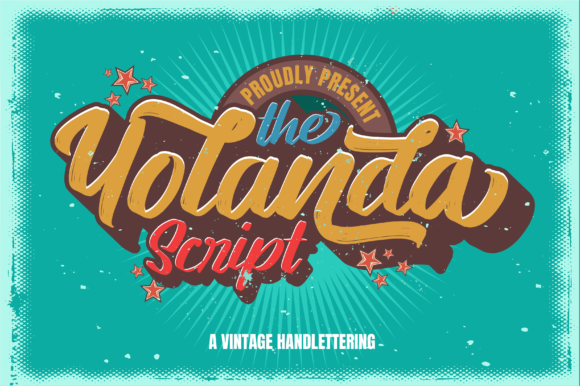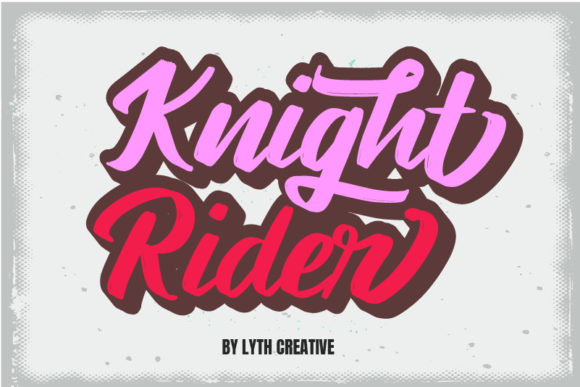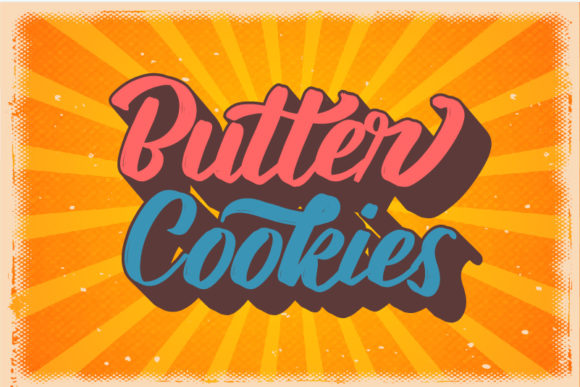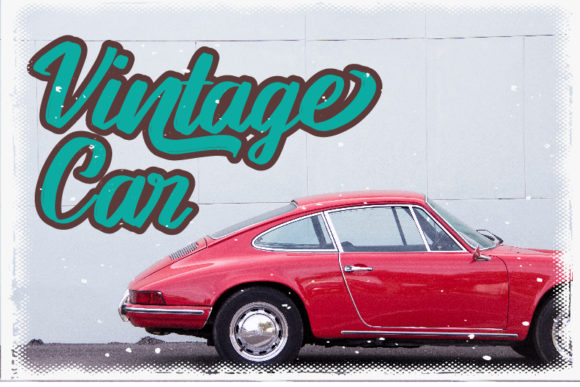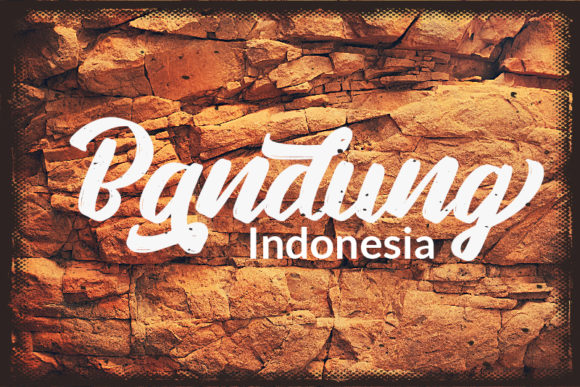
Yolanda Font
About Yolanda Font
Yolanda evokes the great design fonts of the 50s and 60s, making it the perfect font for any design project in need of a retro touch-up!